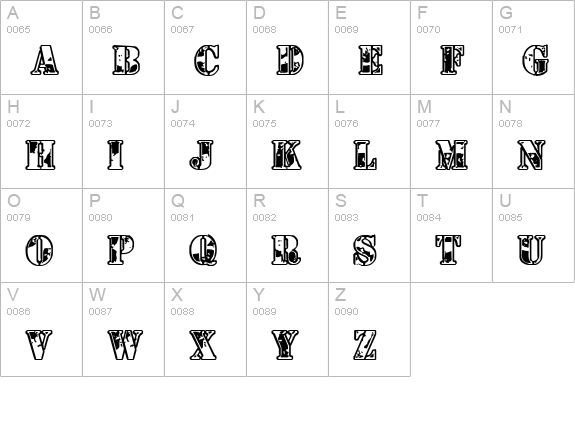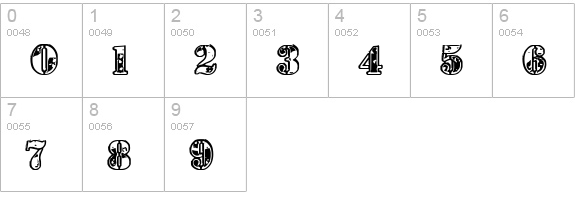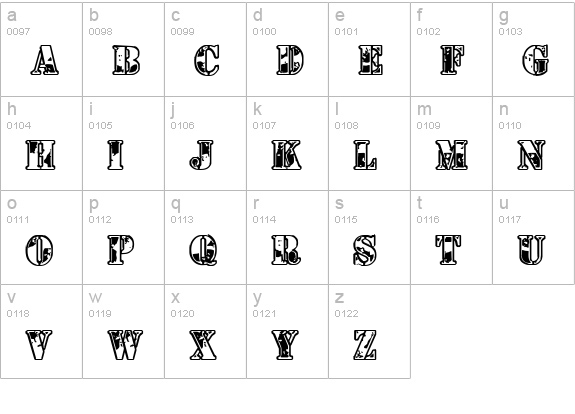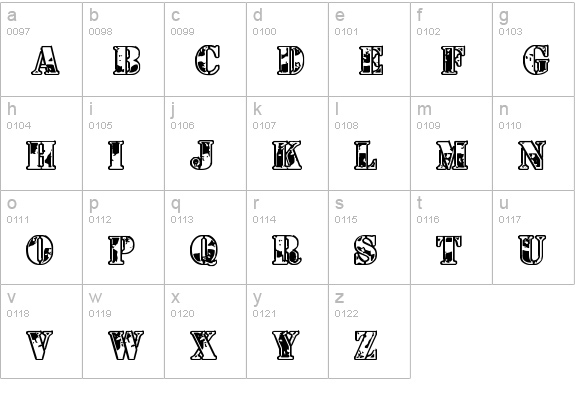
1st Cav Font Details
Introducing the majestic 1st Cav font, a bold and striking typeface inspired by the strength and precision of cavalry regiments. With its sharp edges and commanding presence, this font exudes a sense of power and authority, making it perfect for headlines, titles, and branding projects that demand attention. What sets the 1st Cav font apart is not just its impeccable design, but also the fact that it is available for free download at FontsMarket.com. Yes, you read that right - this impressive font can be yours at no cost, allowing you to elevate your designs without breaking the bank. Whether you're working on a poster, website, logo, or any other creative project, the 1st Cav font will add a touch of sophistication and strength. Download it today and unleash the full potential of your design endeavors!